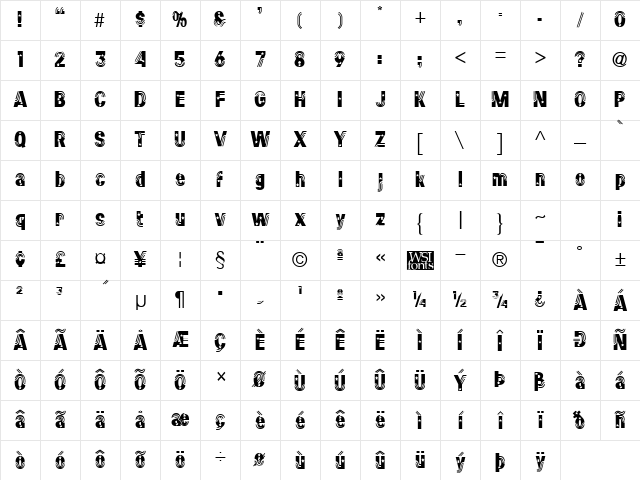
Stars&Stripes Regular
Design Context for Stars&Stripes
Stars&Stripes is a composed and adaptable typeface that performs quietly and consistently across a wide range of design contexts.